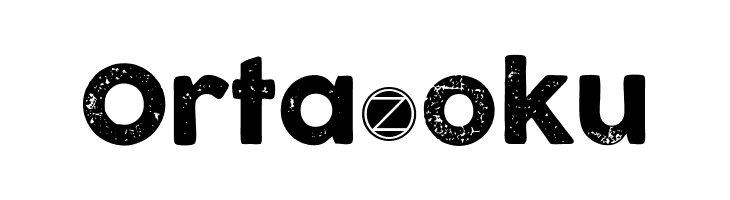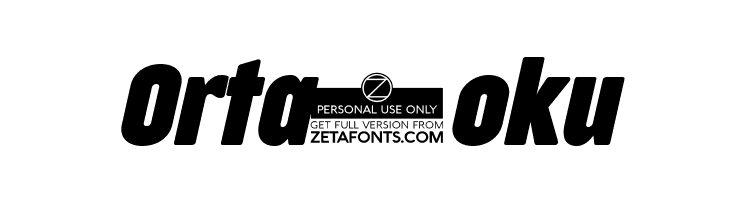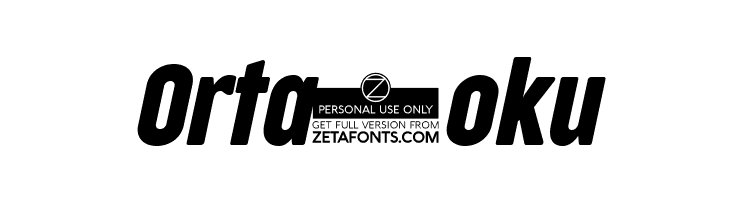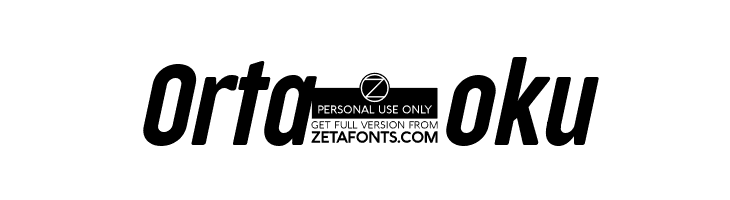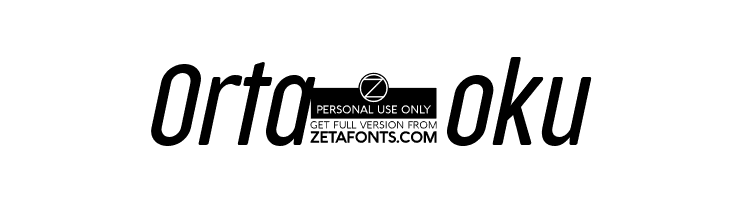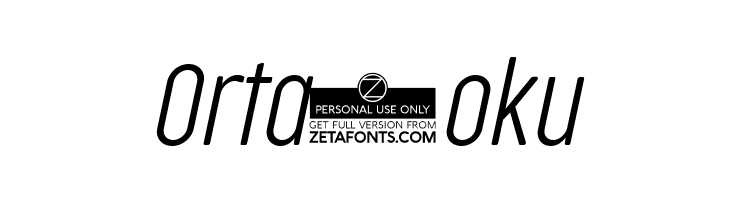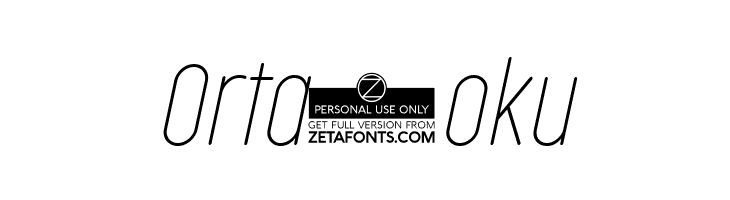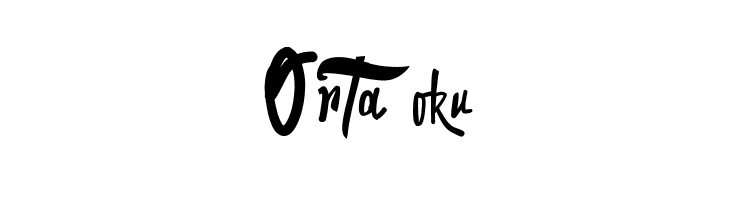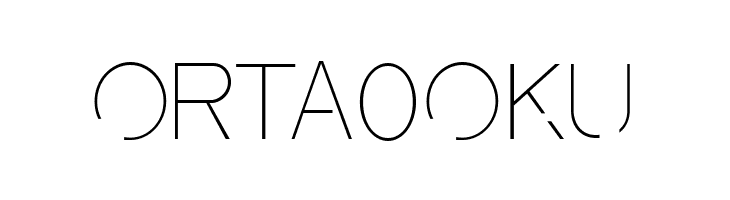
A bold, futuristic semi-italic font with wide, blocky characters.
A bold, geometric font with a distinctive horizontal striped pattern.
A bold, 3D font with geometric shapes and a shadow effect.
A bold, left-slanted font with angular, dynamic characters.
A bold, italicized, and expanded font with a dynamic and modern style.
A playful, whimsical font with rounded and angular elements, perfect for creative projects.
A decorative font with characters enclosed in ornate, stamp-like frames.
A bold, playful font with thick, rounded characters and a whimsical style.
A playful, modern font with bold curves and consistent stroke width.
A romantic and whimsical script font with elegant curves and playful accents.
A bold, geometric font with an industrial and stencil-like appearance.
A modern, light, and italic font with elongated characters and a clean aesthetic.
A decorative, vintage-style font with intricate details and textured appearance.
A bold, decorative font with vintage, textured details.
A bold, distressed font with a vintage, textured style.
A graceful and fluid handwritten font with elegant, dynamic strokes.
A lively and elegant script font with fluid strokes and cohesive design.
A bold, distressed font with a vintage, textured appearance.
A modern, elegant script font with intricate loops and artistic flourishes.
A bold, elegant script font with flowing, interconnected characters.
A hand-drawn, brush-style font with dynamic strokes and an artistic flair.
A bold, expressive handwritten font with dynamic, irregular strokes.
A playful handwritten font with lively, fluid letterforms and smooth strokes.
A bold, expanded, and italicized font with a futuristic and angular design.
A bold, italicized font with a futuristic and dynamic design.
A bold, futuristic font with geometric, blocky characters.
A festive handwritten script font with snowflake accents, perfect for holiday designs.
A bold, flowing script font with a festive, handwritten style.
A bold, playful script font with flowing, energetic curves.
A dynamic, brush-style font with bold, expressive strokes.
A tall, narrow font with a modern and sophisticated design, perfect for impactful headlines.
A playful, handwritten font with smooth, flowing lines and a casual aesthetic.
A bold, italicized handwritten font with a dynamic and expressive style.